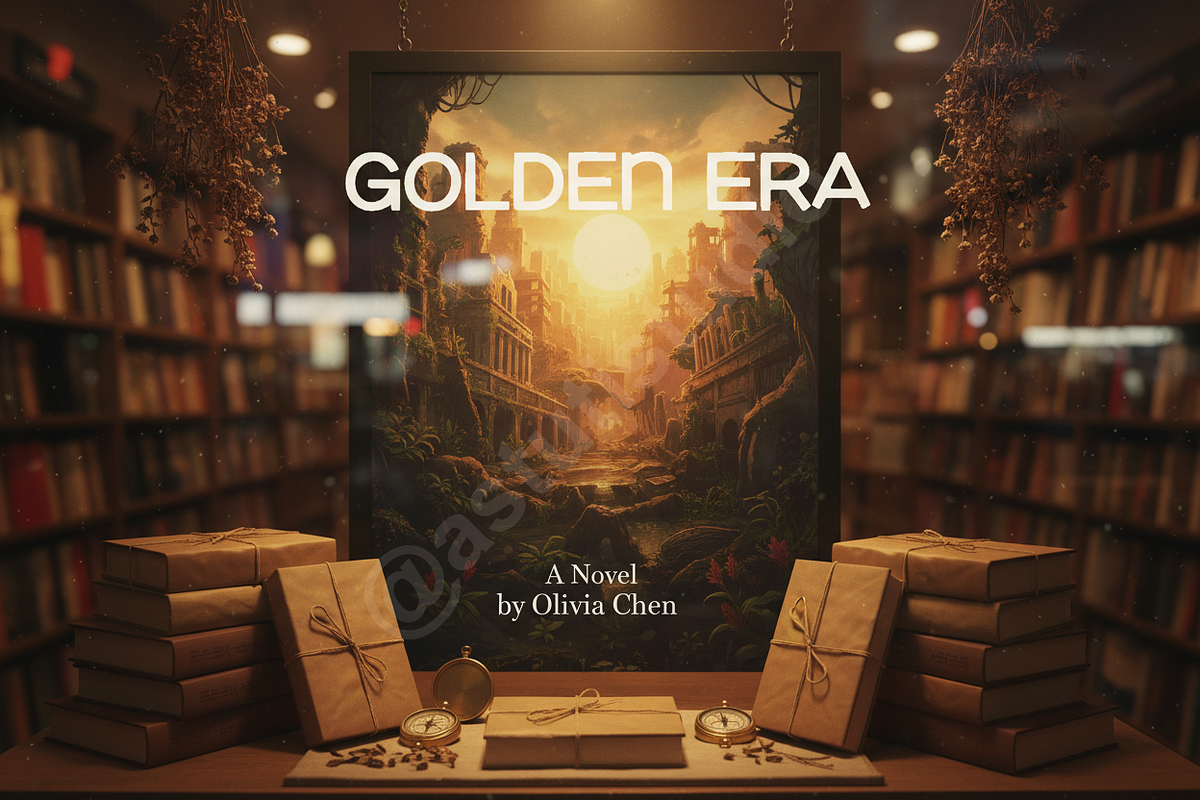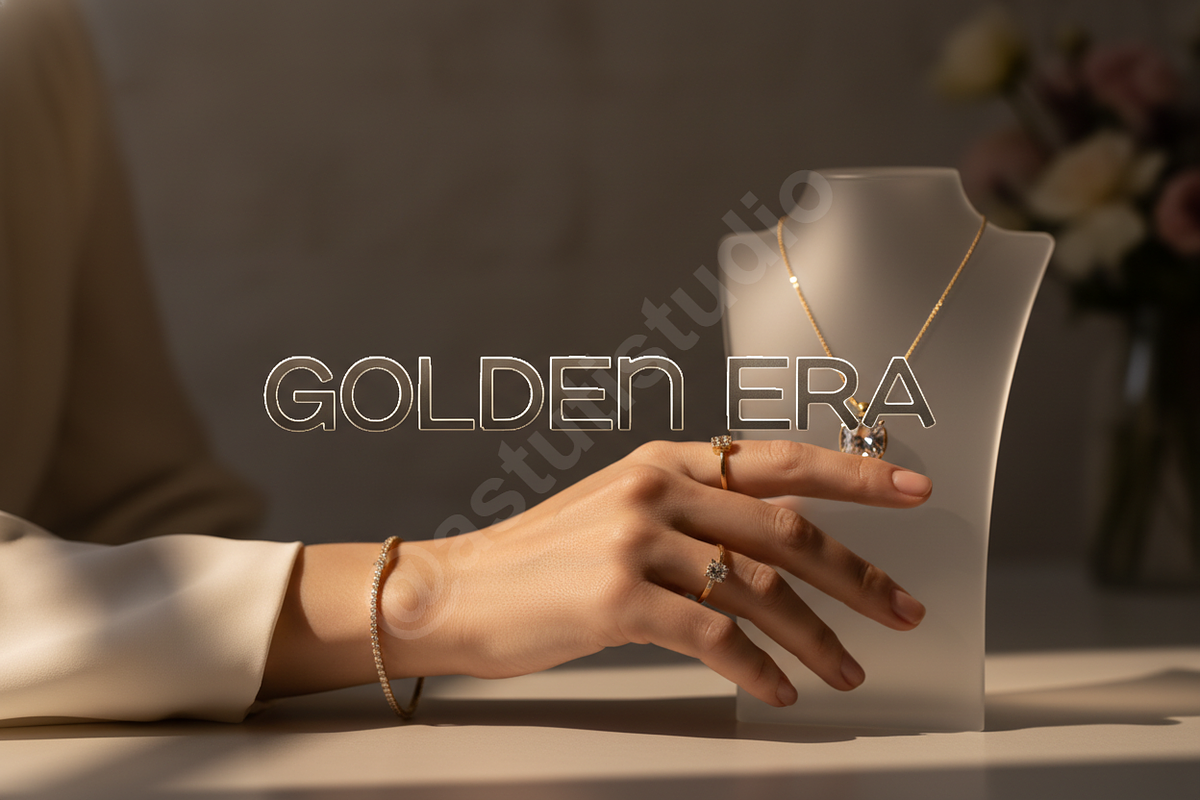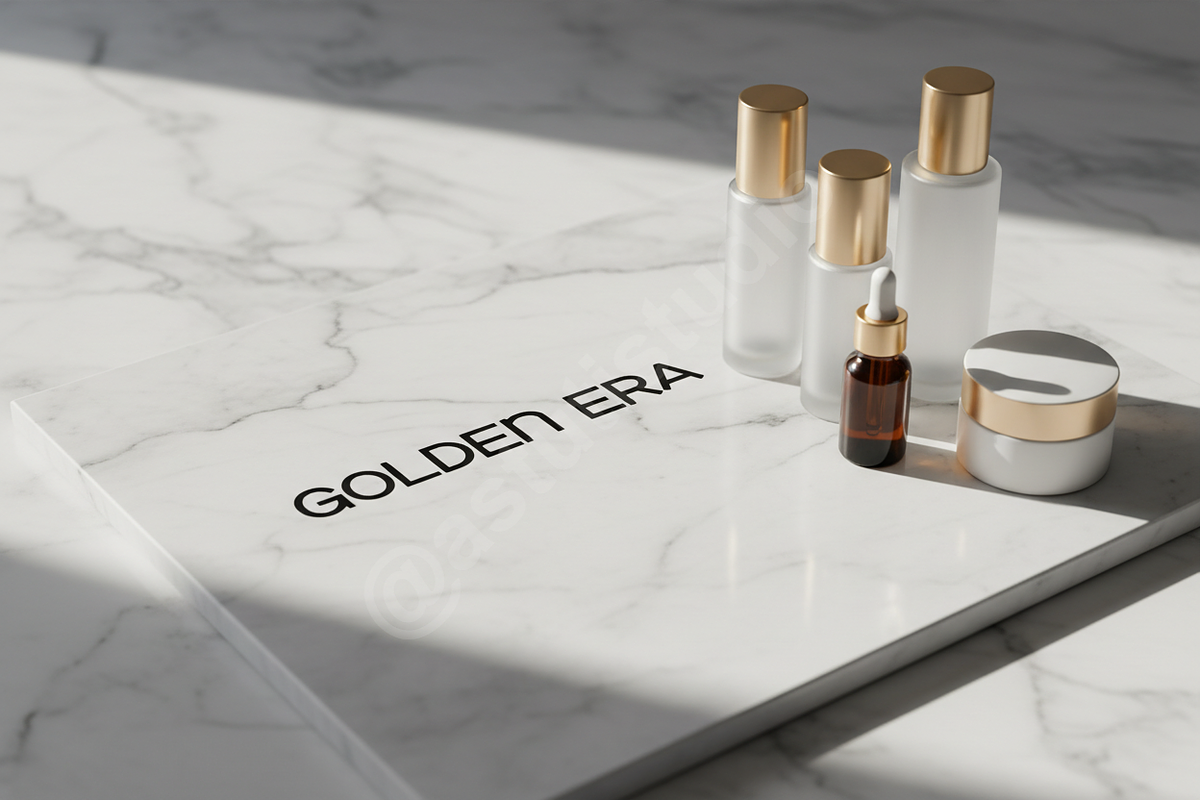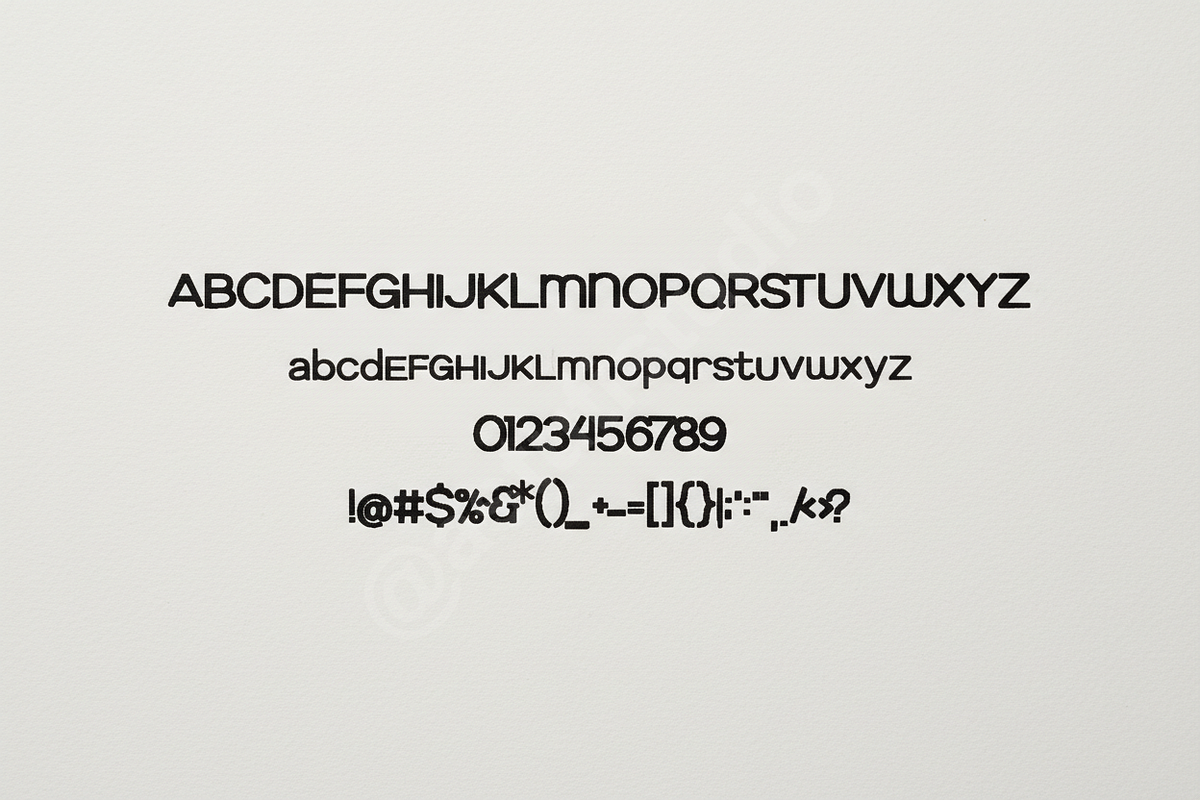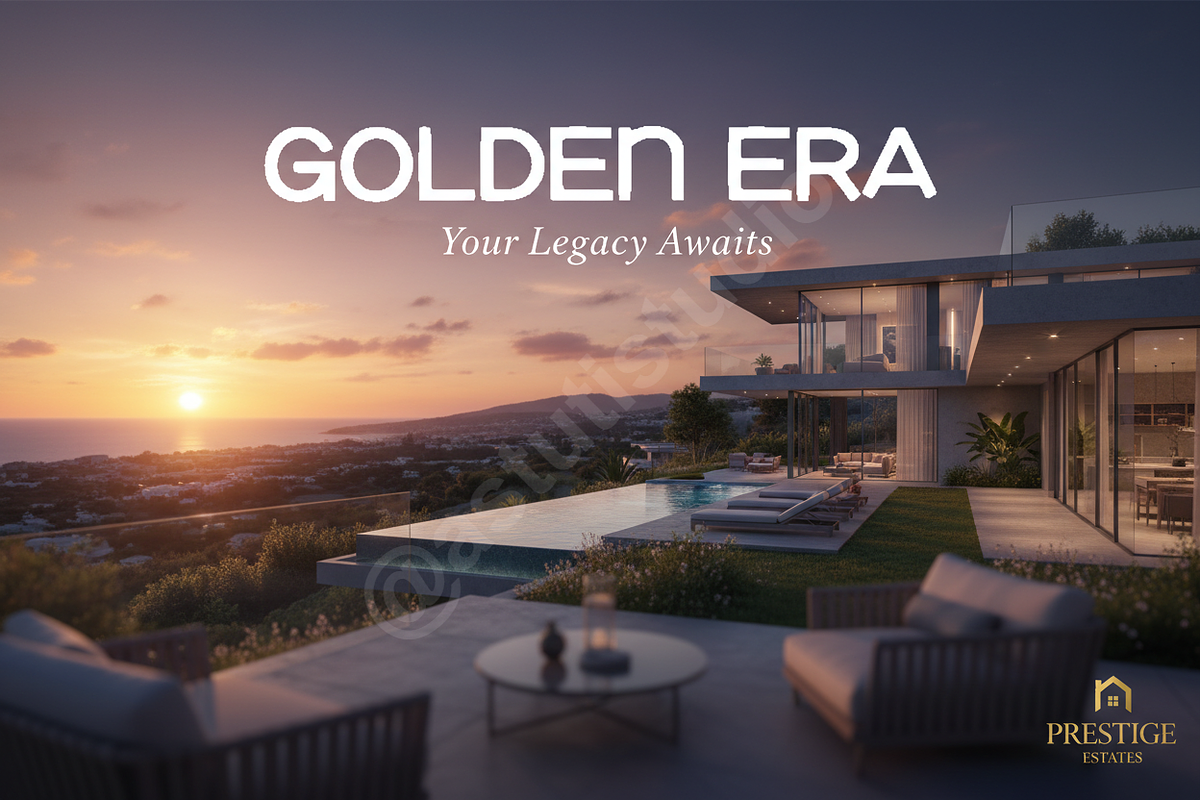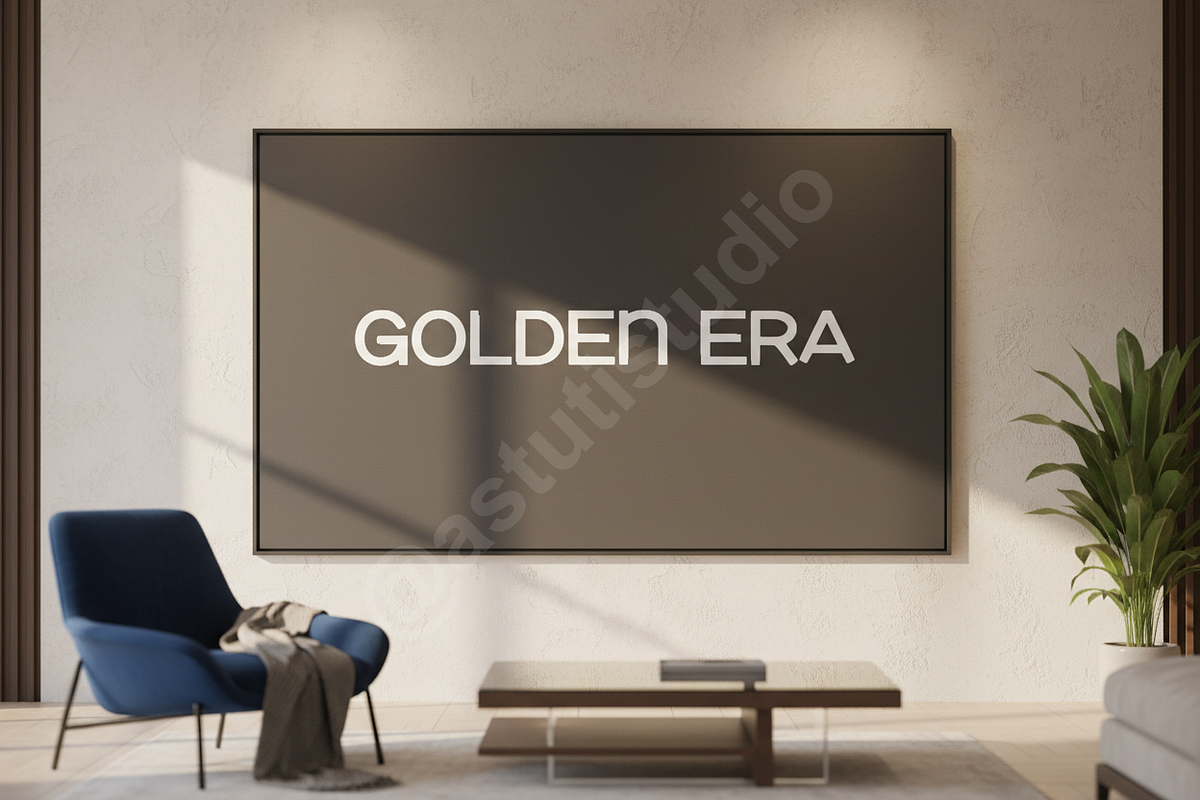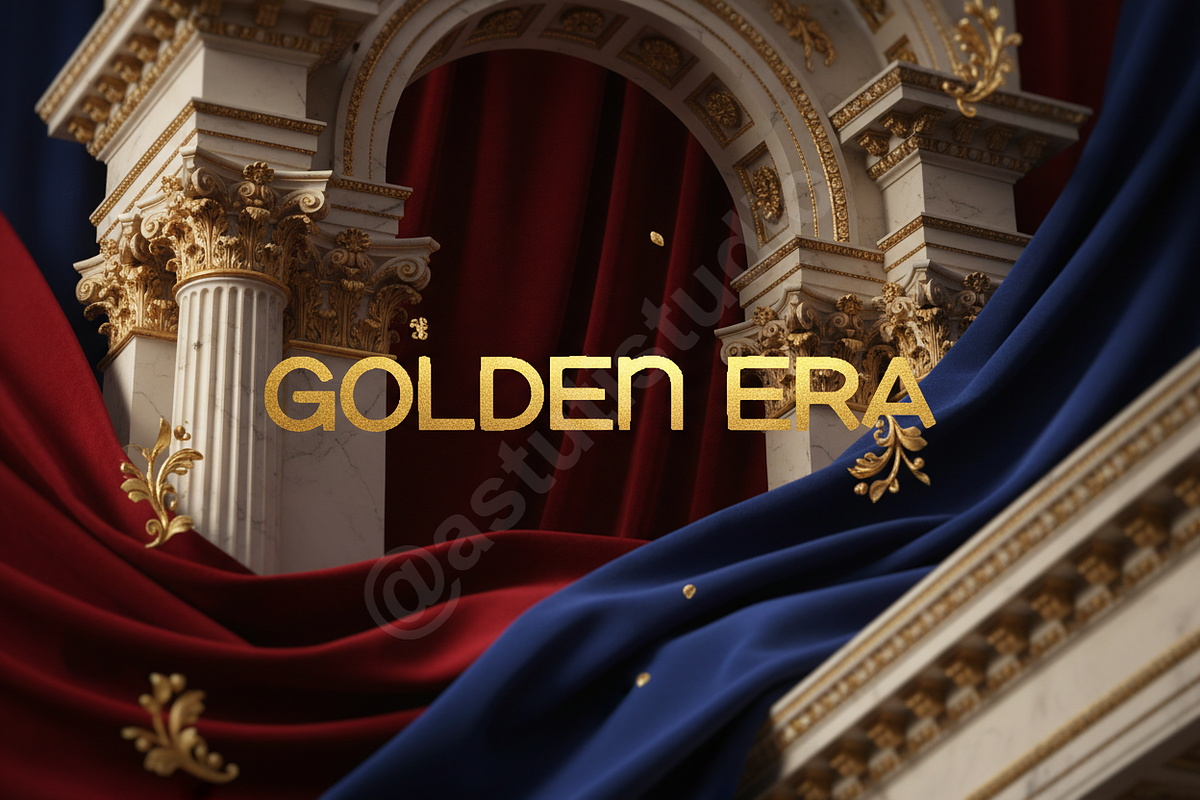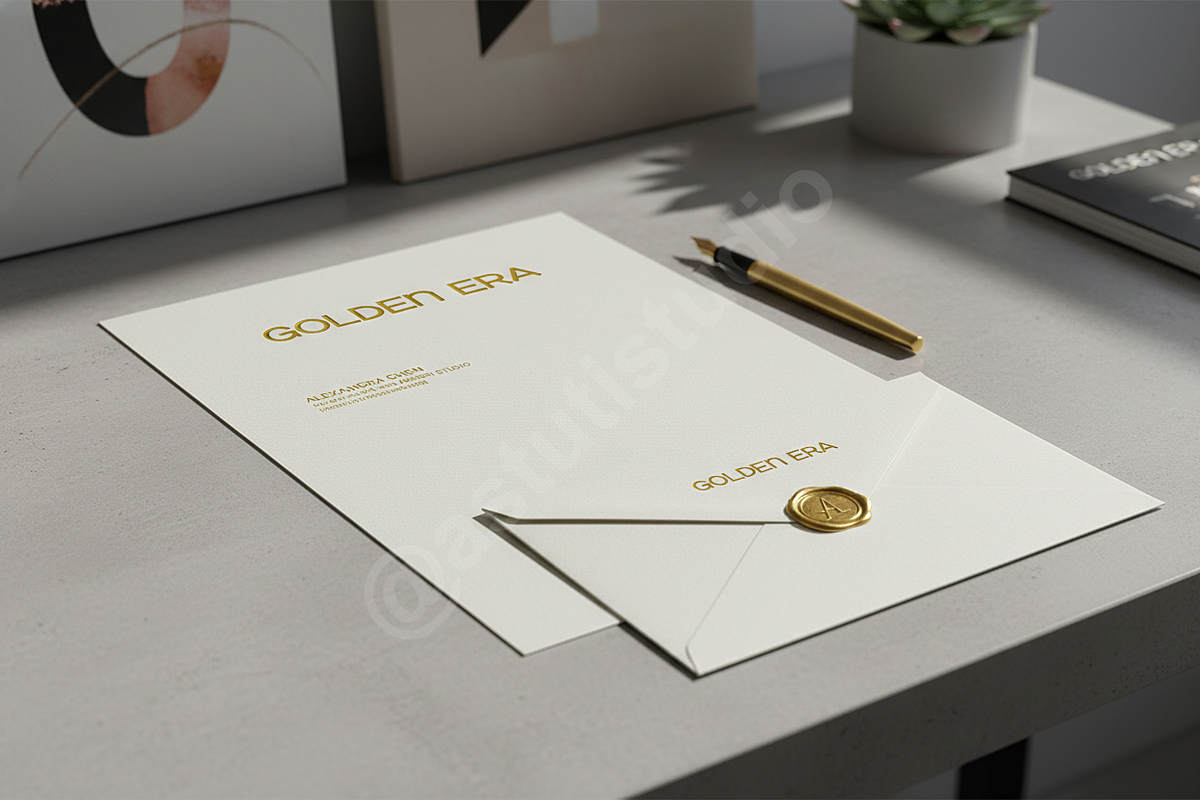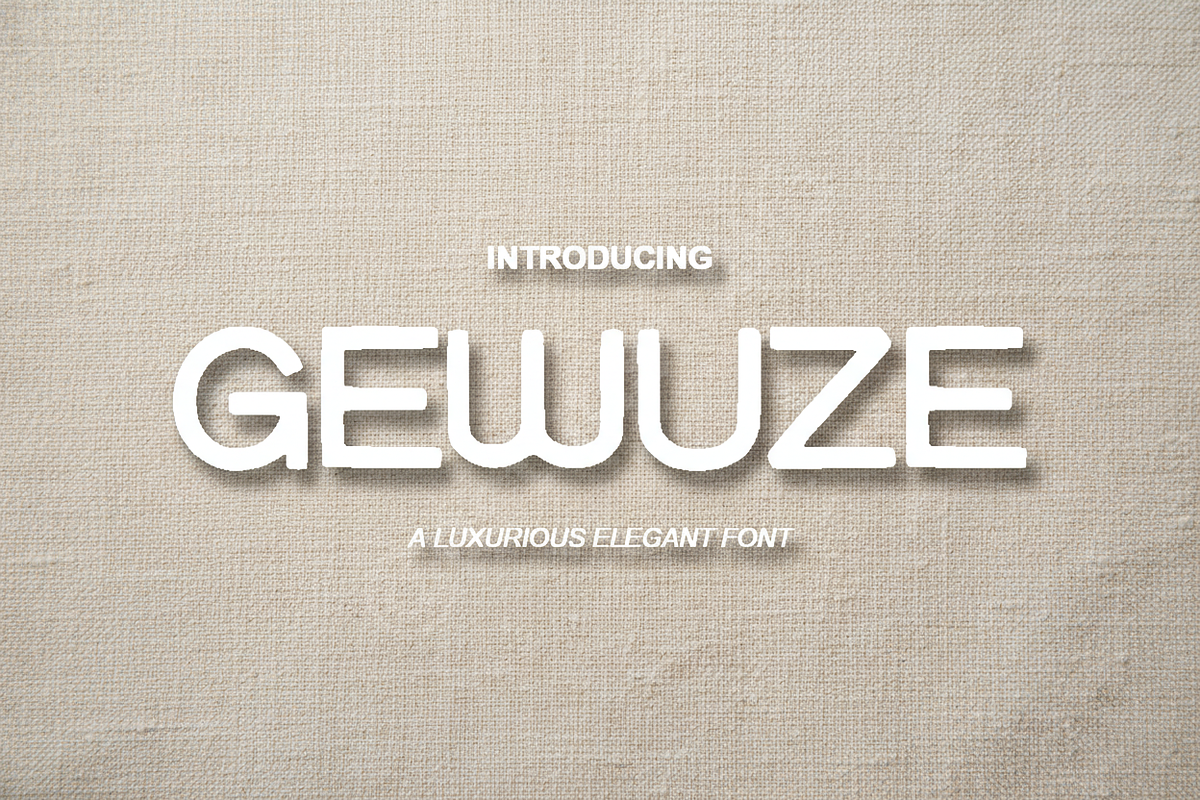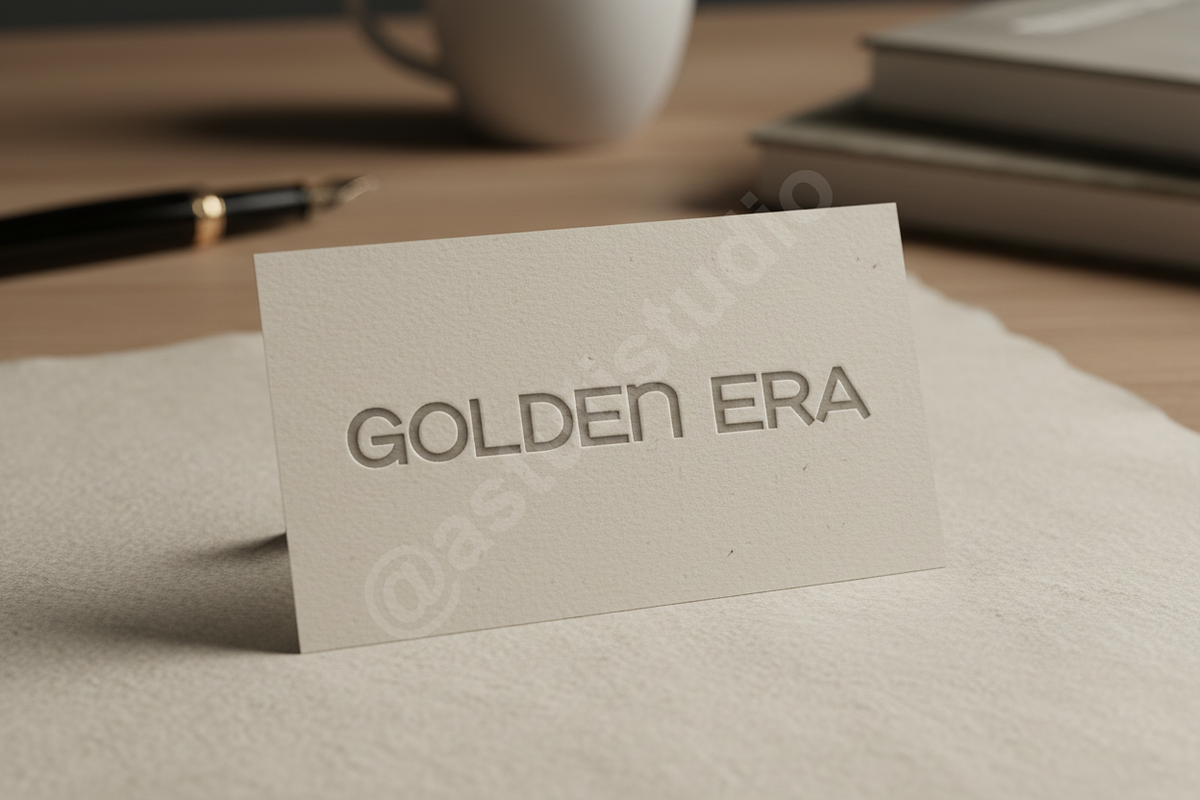
Gewuze - Elegant Serif Font for Luxu
Introducing Gewuze, a sophisticated serif font meticulously crafted for the discerning designer. Gewuze embodies timeless elegance and modern versatility, making it the quintessential choice for projects demanding a touch of refined luxury. Its graceful curves and precise letterforms are designed to elevate your creative vision, ensuring your message is conveyed with unparalleled style and clarity. Perfect for high-end luxury branding, sophisticated editorial layouts, impactful social media campaigns, and any design endeavor where elegance is paramount.
- Luxurious Aesthetic: A beautifully balanced serif design that exudes sophistication and premium quality.
- Versatile Application: Seamlessly transitions from striking display headlines to legible body text, maintaining its elegance across all sizes.
- Extensive Ligatures & Alternates: Enhance your typography with a rich set of OpenType features, providing unique stylistic variations for a truly custom look.
- Multilingual Support: Designed to cater to a global audience with broad language coverage.
- Optimized for Digital & Print: Crafted for exceptional readability and visual appeal across both digital screens and high-resolution print.